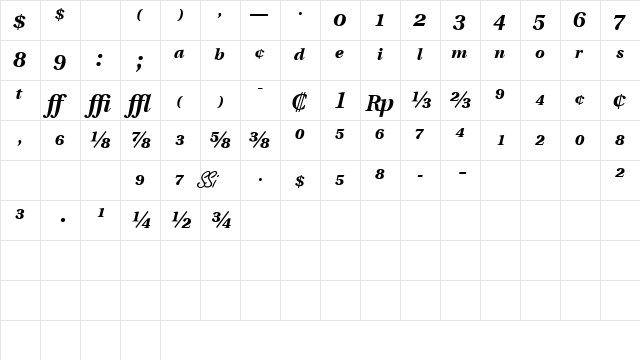
VeracityProBlackSSK Italic Font Preview
VeracityProBlackSSK Italic
VeracityProBlackSSK Italic Font Details
Design Context for VeracityProBlackSSK Typeface
VeracityProBlackSSK takes a measured approach to typography — its balanced proportions and neutral character make it a reliable workhorse for both digital and print work. Its italic angle brings a sense of urgency and motion to the letterforms.
Pro Tip: Use VeracityProBlackSSK for emphasis, pull quotes, and subheadings where its slanted energy can add rhythm to the layout.